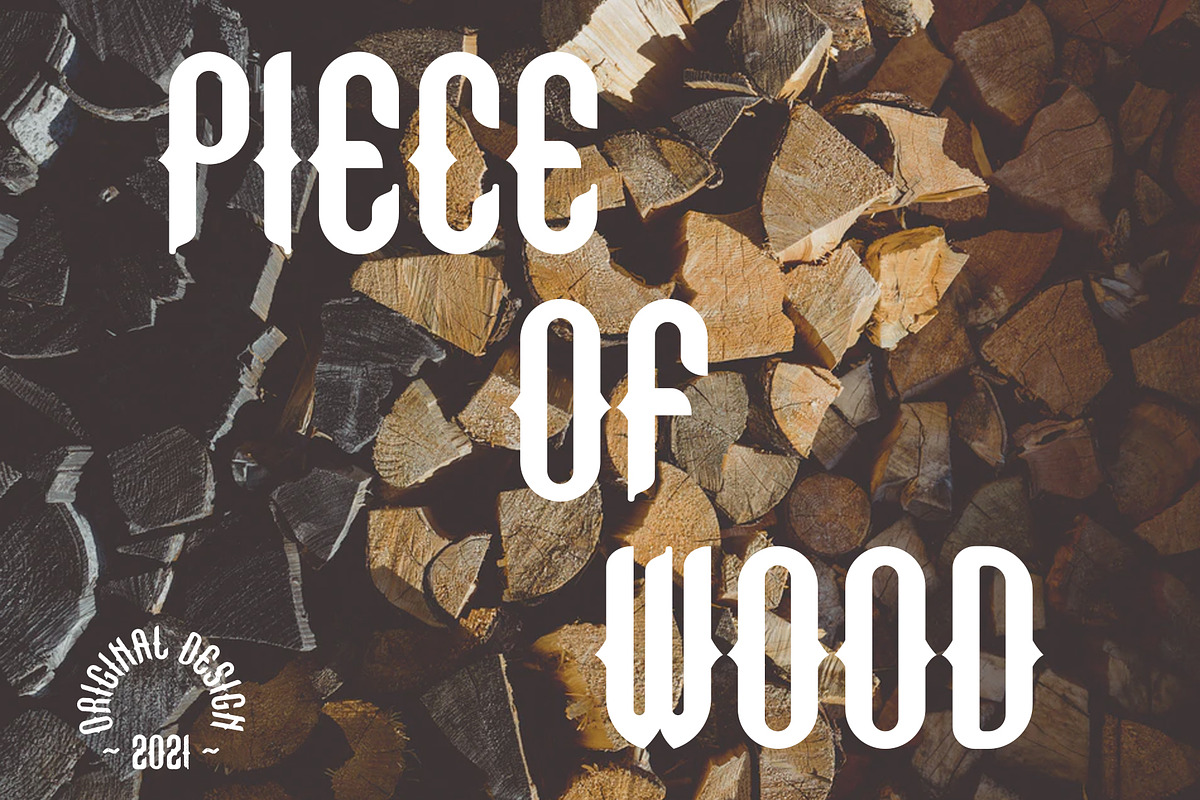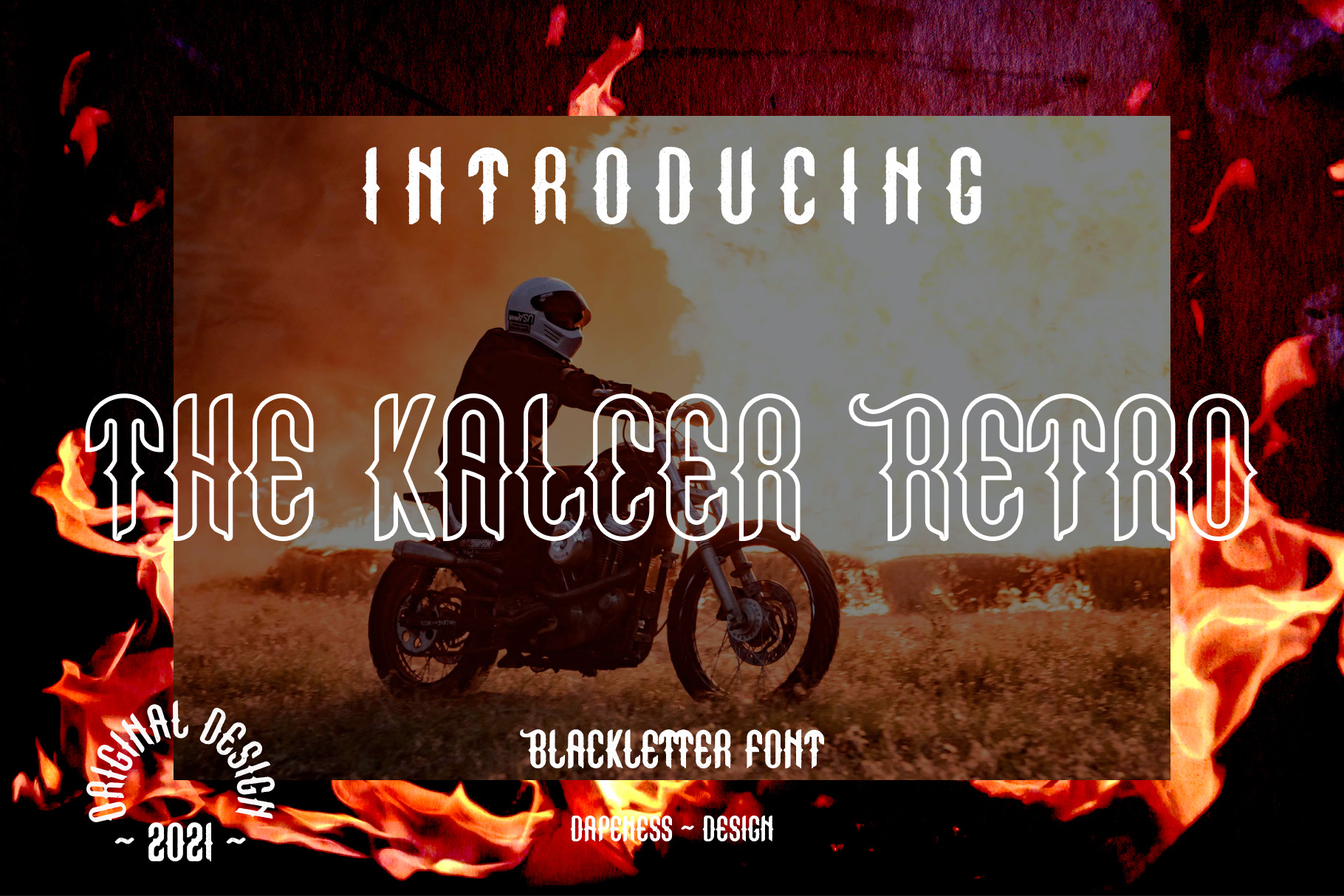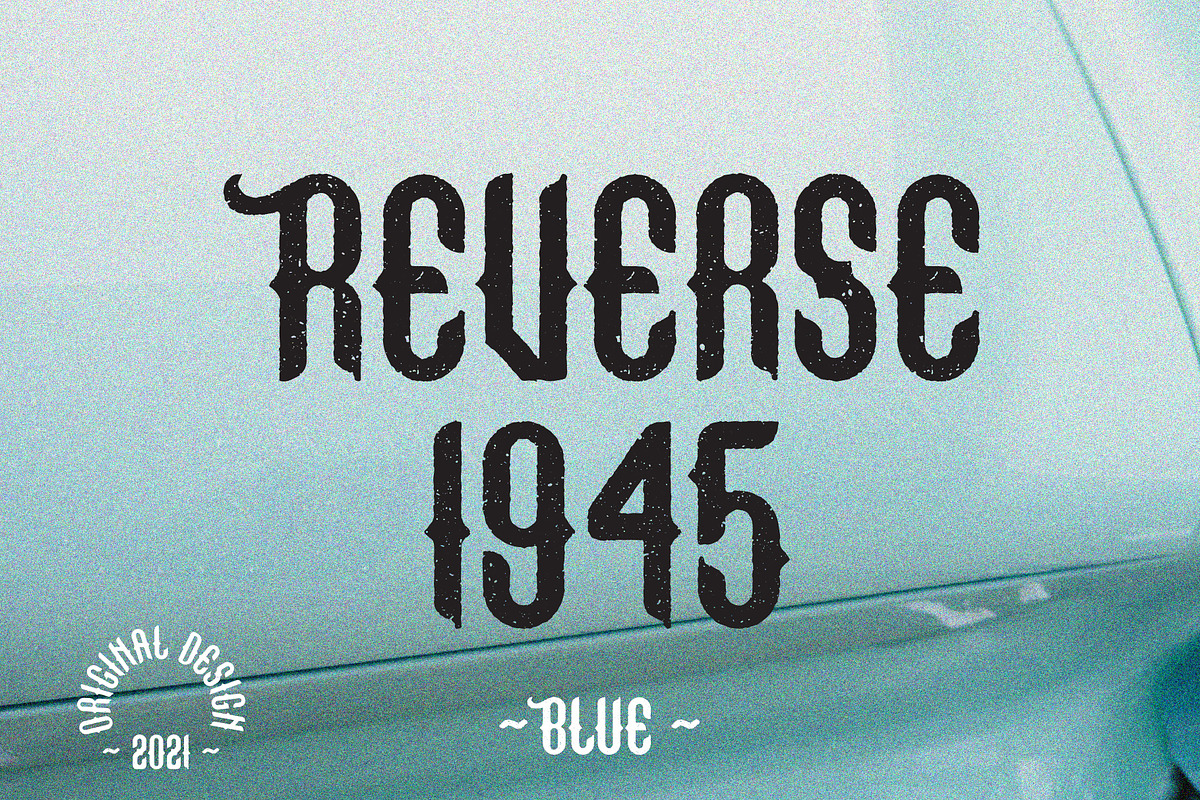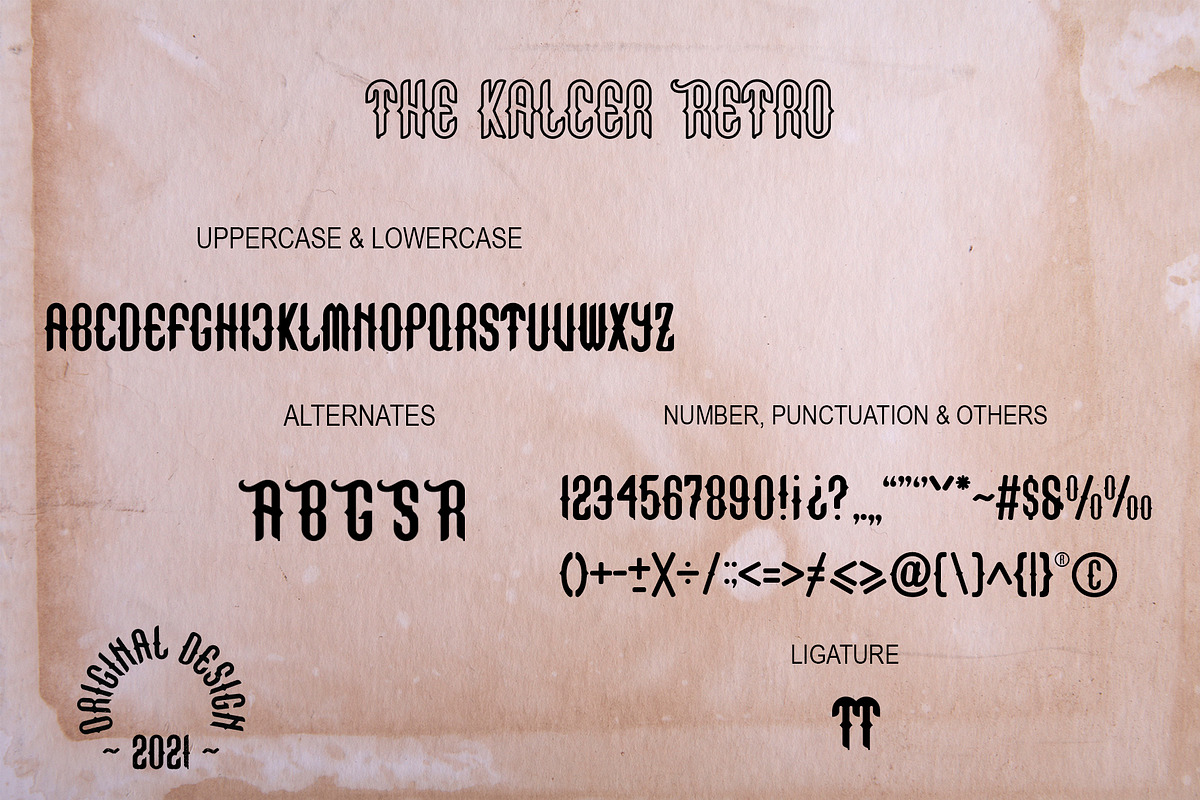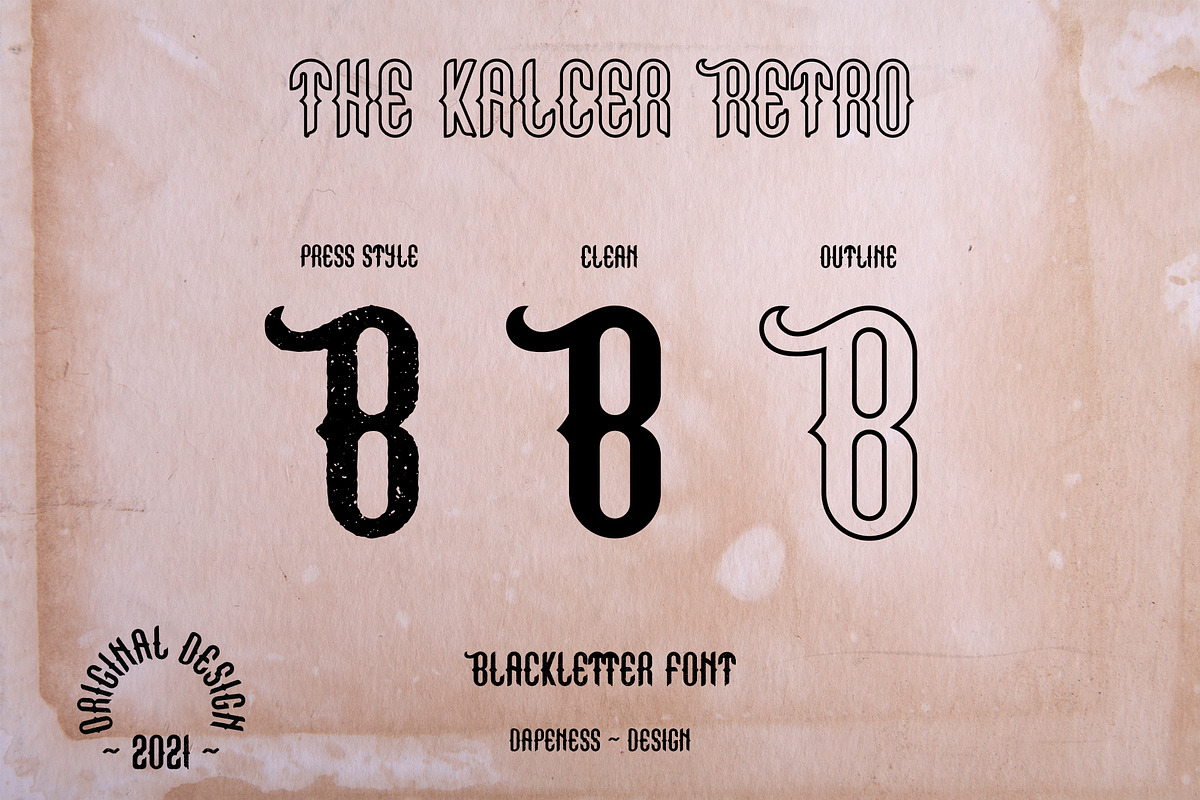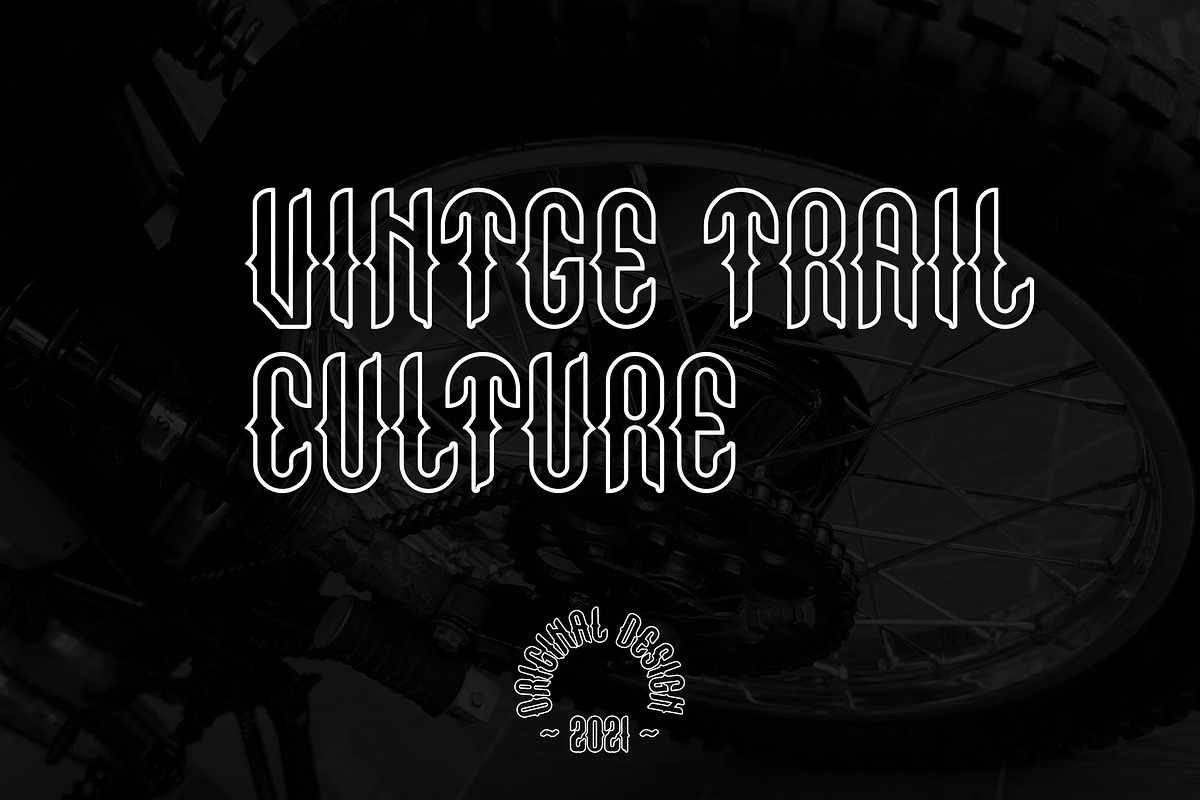
The Kalcer Retro Font
The Kalcer Retro is a casual blackletter font. This font is the ideal font for adding an adventurous and authentic feel to your next design idea!
Style Font:
Reguler
Outline
Press Style